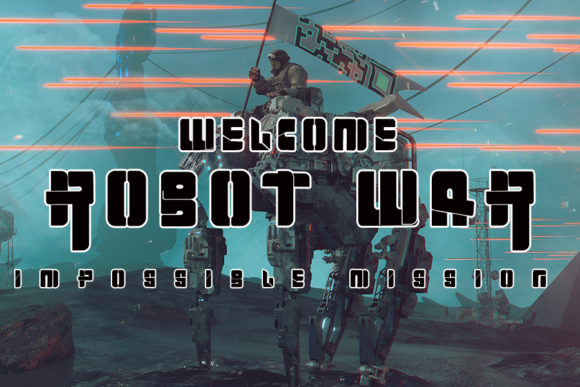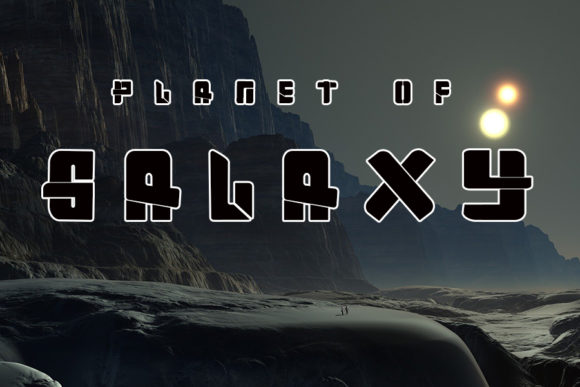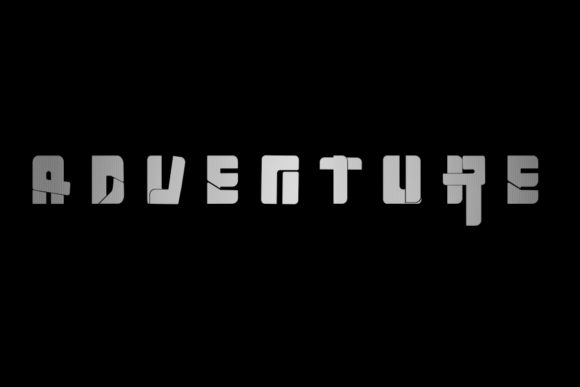
The Ultimate Guide to Designer Font: Elevate Your Designs with a Cool and Futuristic Display Font
I’ll never forget the design project that had me stuck in a font rut. I was working on a futuristic tech brochure, and my client wanted a bold, attention-grabbing font that would scream innovation. I scoured the internet, tried countless fonts, but nothing seemed quite right. That was until I stumbled upon the Designer Font. Its sleek, futuristic vibe instantly resonated with my project’s theme. I knew right then and there that I had found the perfect fit.
An Honest Review of Designer Font
What I Love About Designer Font ✨
- 💥 Bold and Assertive: The Designer Font exudes confidence with its bold and assertive style, making it perfect for headlines and titles.
- 🎨 Versatile: This font can be used across various design projects, from tech brochures to fashion magazines, and even packaging designs.
- 🌐 OpenType Features: The Designer Font comes with a range of OpenType features, including stylistic alternates and glyphs, giving you plenty of creative freedom.
- 👍 Easy to Read: Despite its bold nature, the font remains surprisingly legible, even at smaller sizes.
- ⚠️ Limited Use Cases: While the Designer Font is amazing for headlines and titles, it might not be the best choice for body text or smaller captions.
- 🤔 Kerning Issues: At very small sizes or when used in certain combinations, you might notice some kerning issues.
One of the standout features of the Designer Font is its support for OpenType features. These include:
- Stylistic Alternates: Swap out certain letterforms for stylistic variations.
- Glyphs: Access a range of additional symbols and icons.
The Backstory of Designer Font
The Designer Font was created with the vision of producing a clean, modern, and highly legible typeface that captures the essence of futuristic design. Inspired by technological advancements and the sleek lines of modern architecture, this font aims to bring a sense of innovation and boldness to any project.
| What makes Designer Font unique? | Its bold and futuristic design, combined with OpenType features, makes it versatile and perfect for headlines and titles. |
| Is Designer Font suitable for body text? | While it’s primarily designed for headlines, it can be used for short body texts, but legibility might decrease at very small sizes. |
With its bold and futuristic style, the Designer Font is sure to elevate your designs and make them stand out. Whether you’re working on a tech brochure, fashion magazine, or any other project, this font is a great choice.